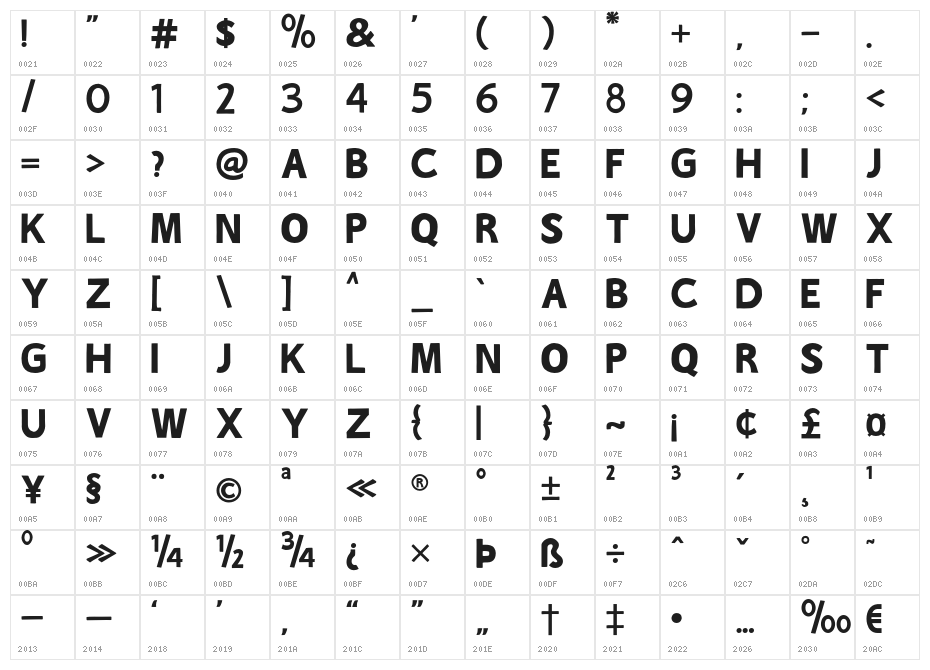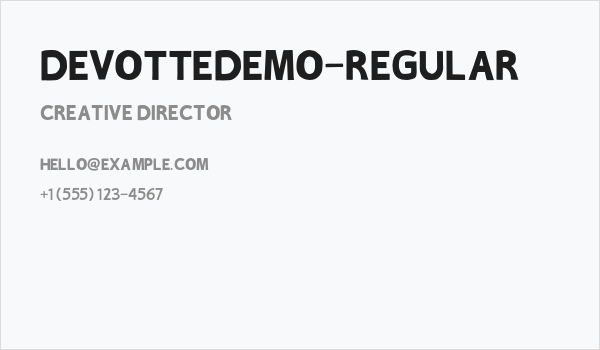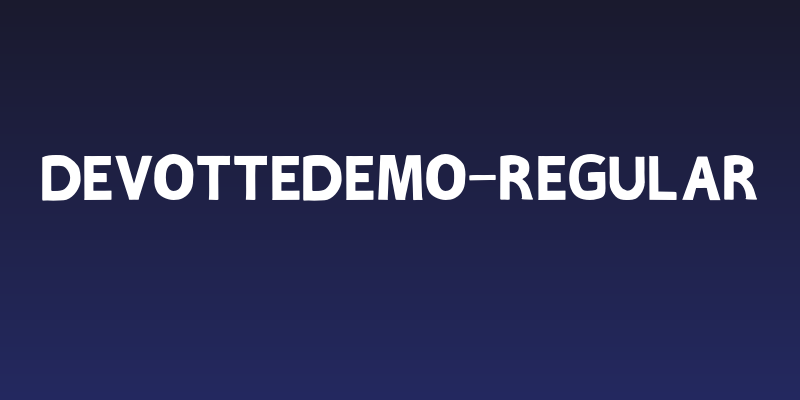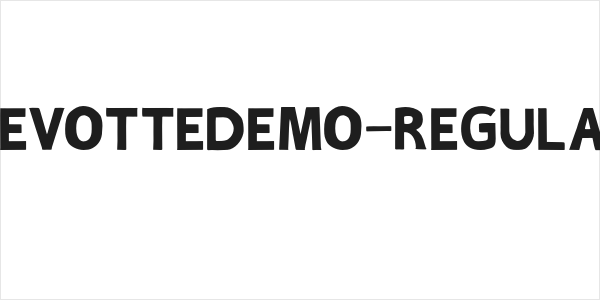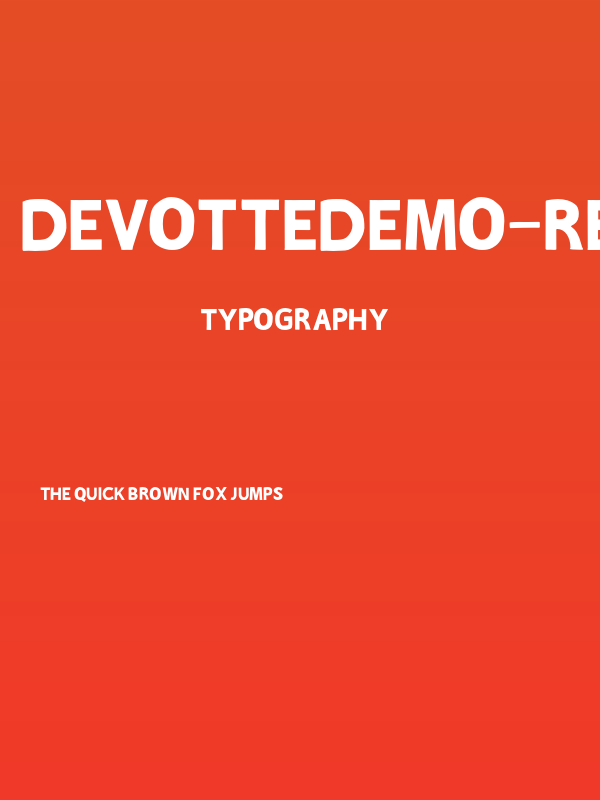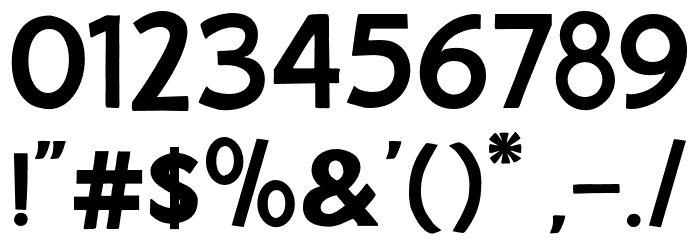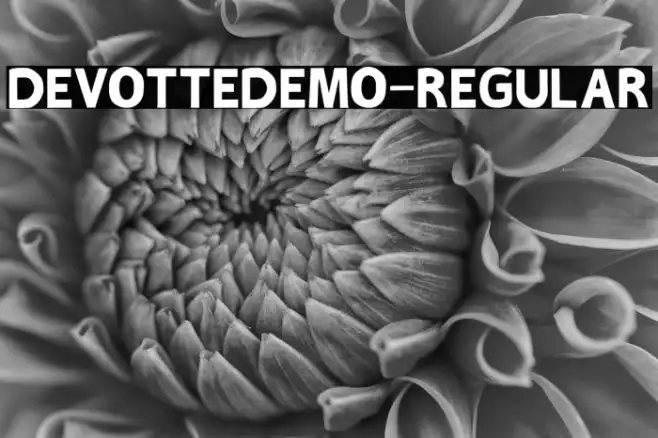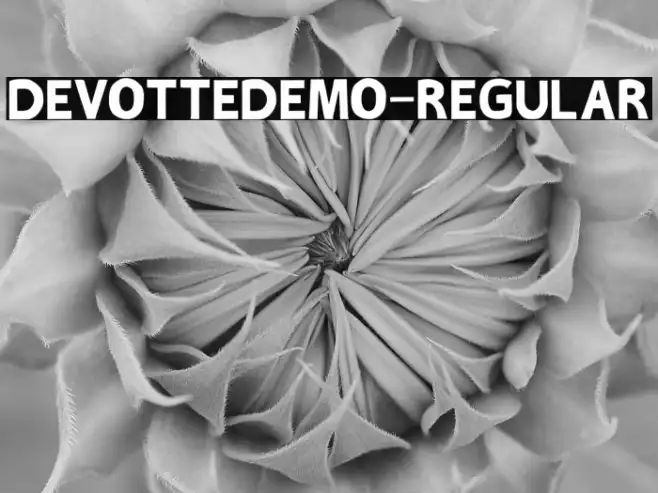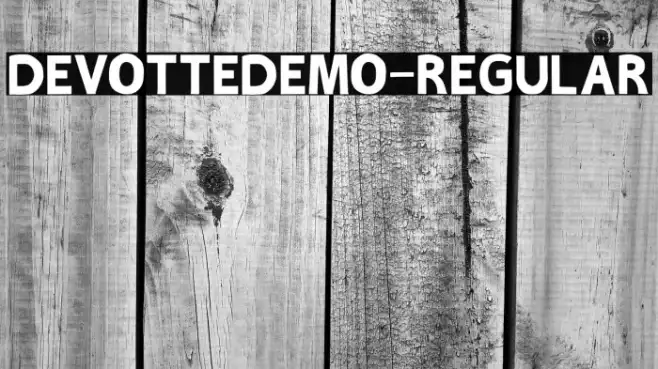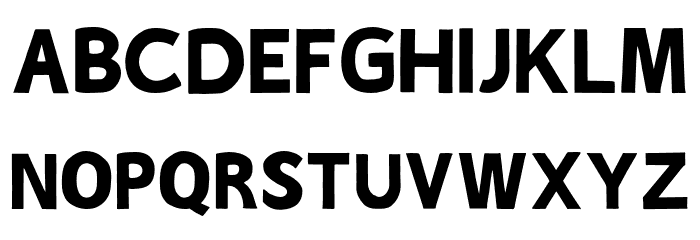
DEVOTTEDEMO-Regular Font
DEVOTTEDEMO-Regular Description
This font exhibits a bold and assertive style, characterized by its thick strokes and strong presence. The uppercase letters are uniform in height, providing a sense of stability and balance. The lowercase letters maintain a similar weight, ensuring consistency throughout the typeface. The numerals are clear and easily distinguishable, making them suitable for various applications. The special characters are well-defined, adding versatility to the font's usage. Overall, the design is modern and impactful, making it ideal for attention-grabbing headlines and branding purposes.